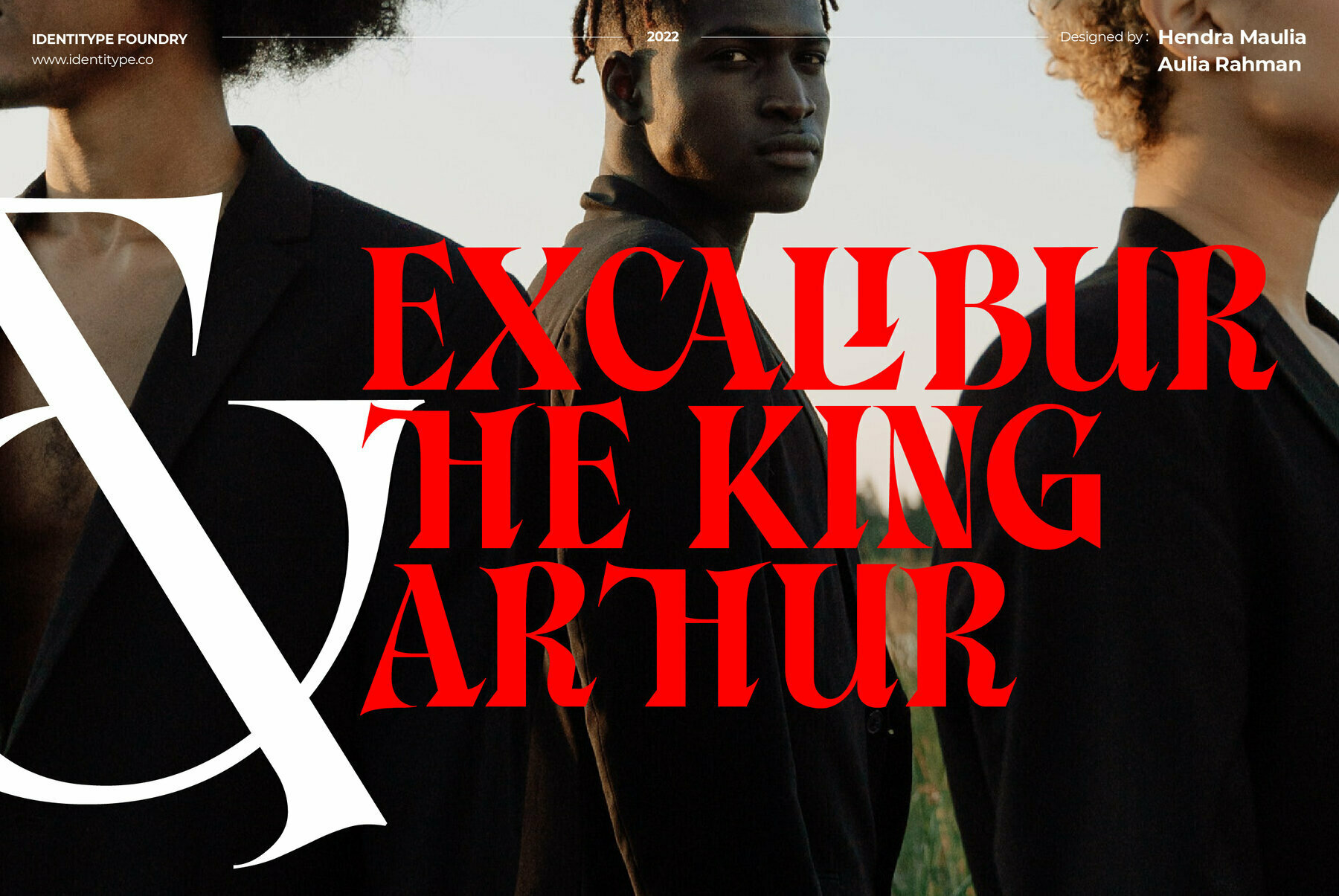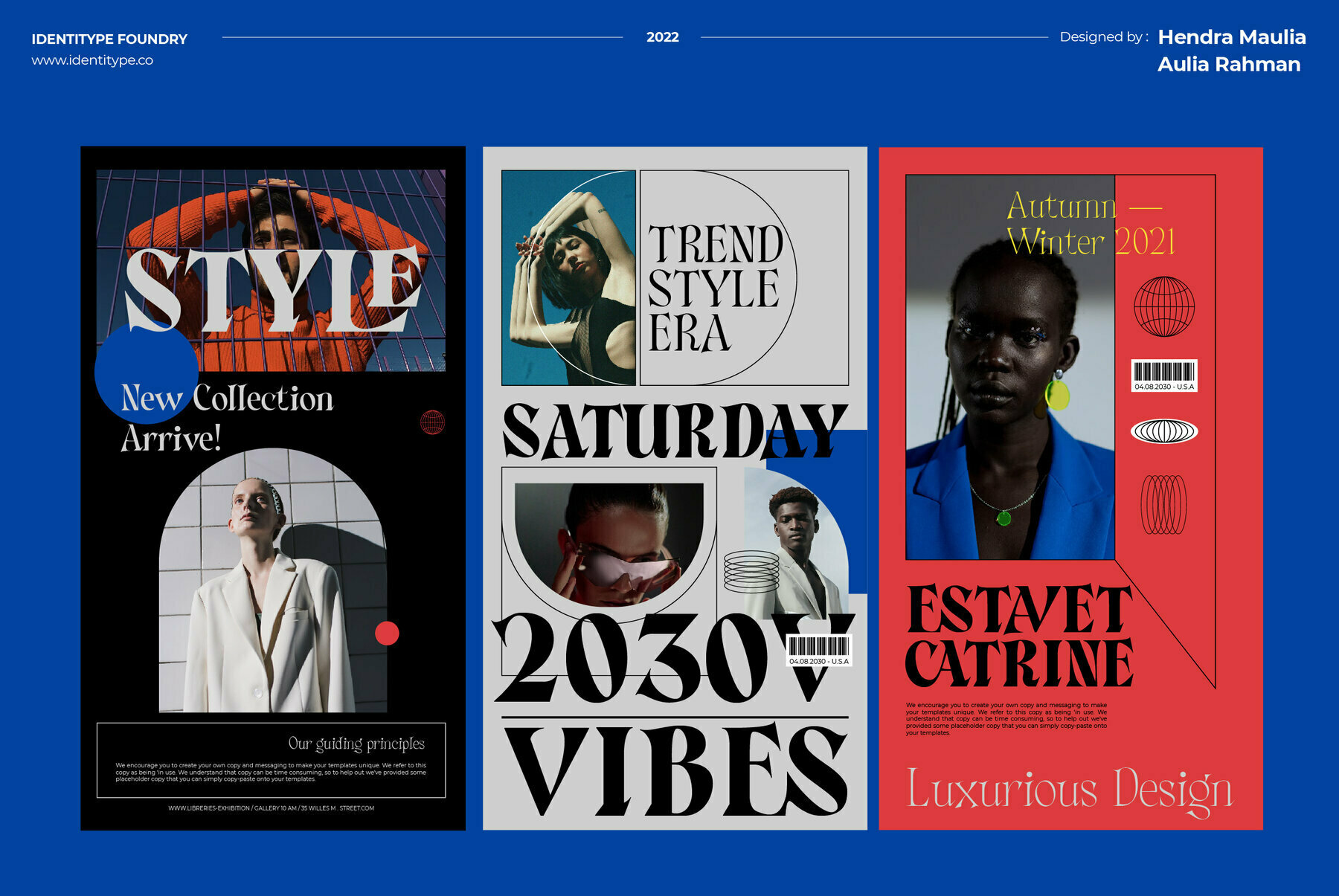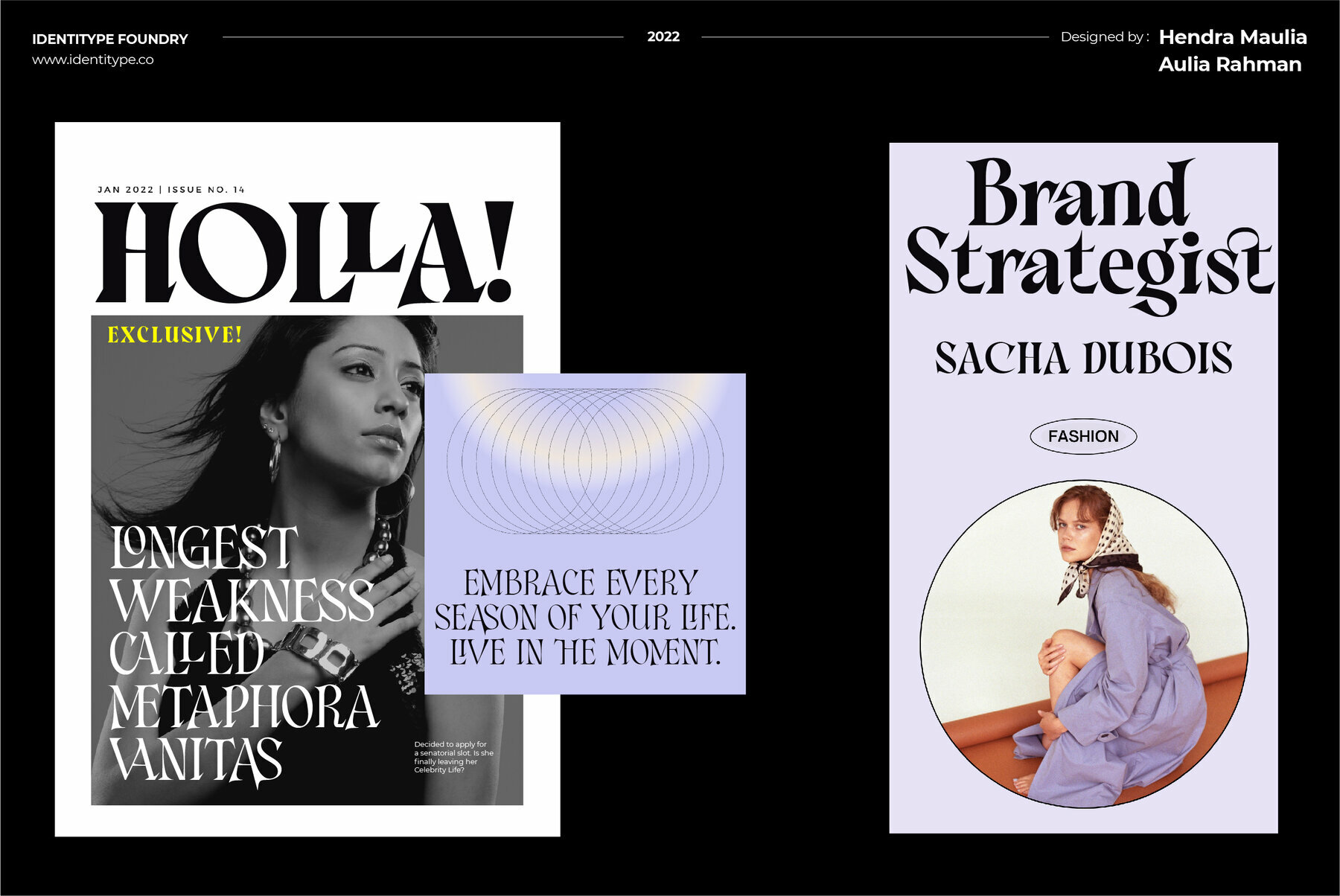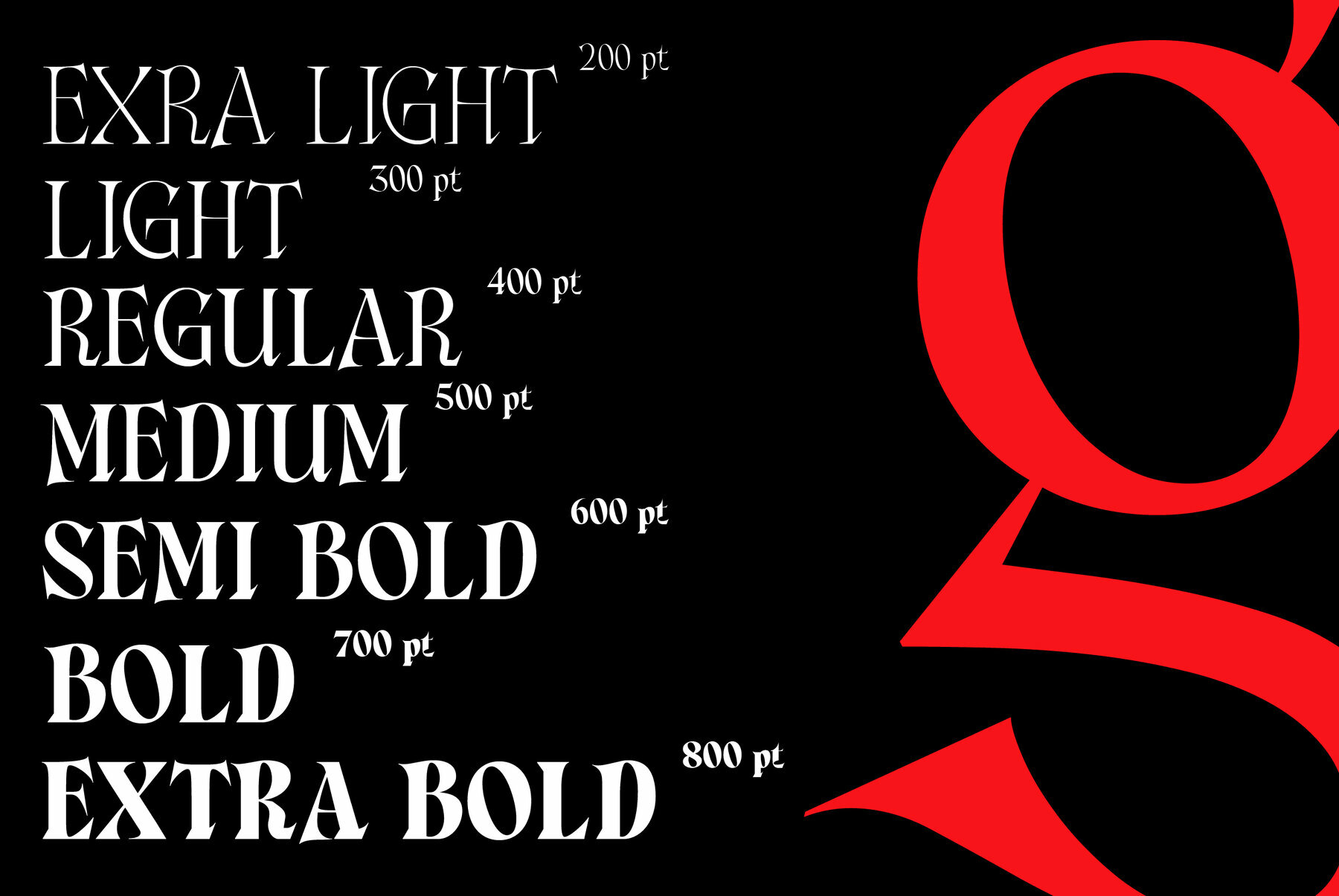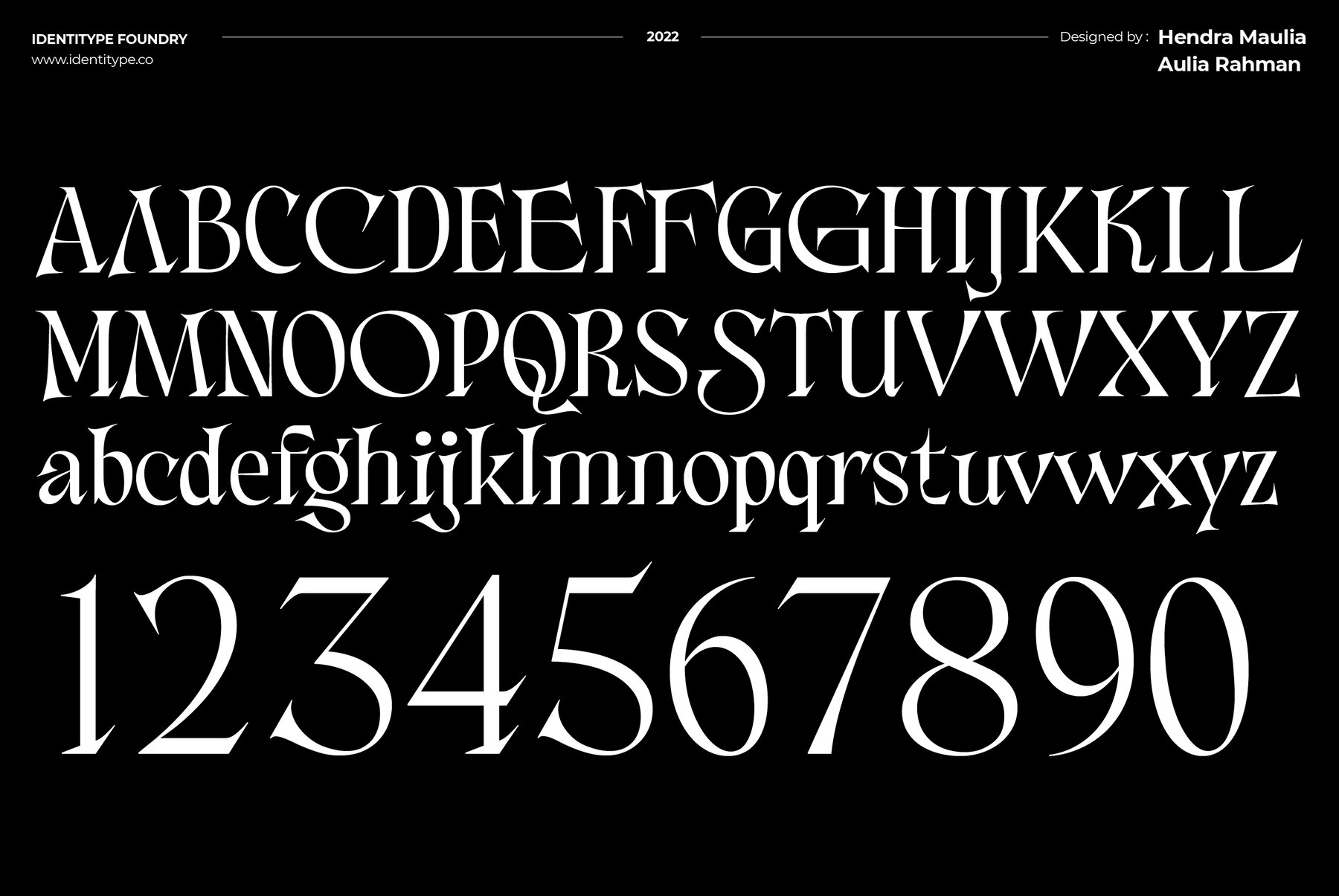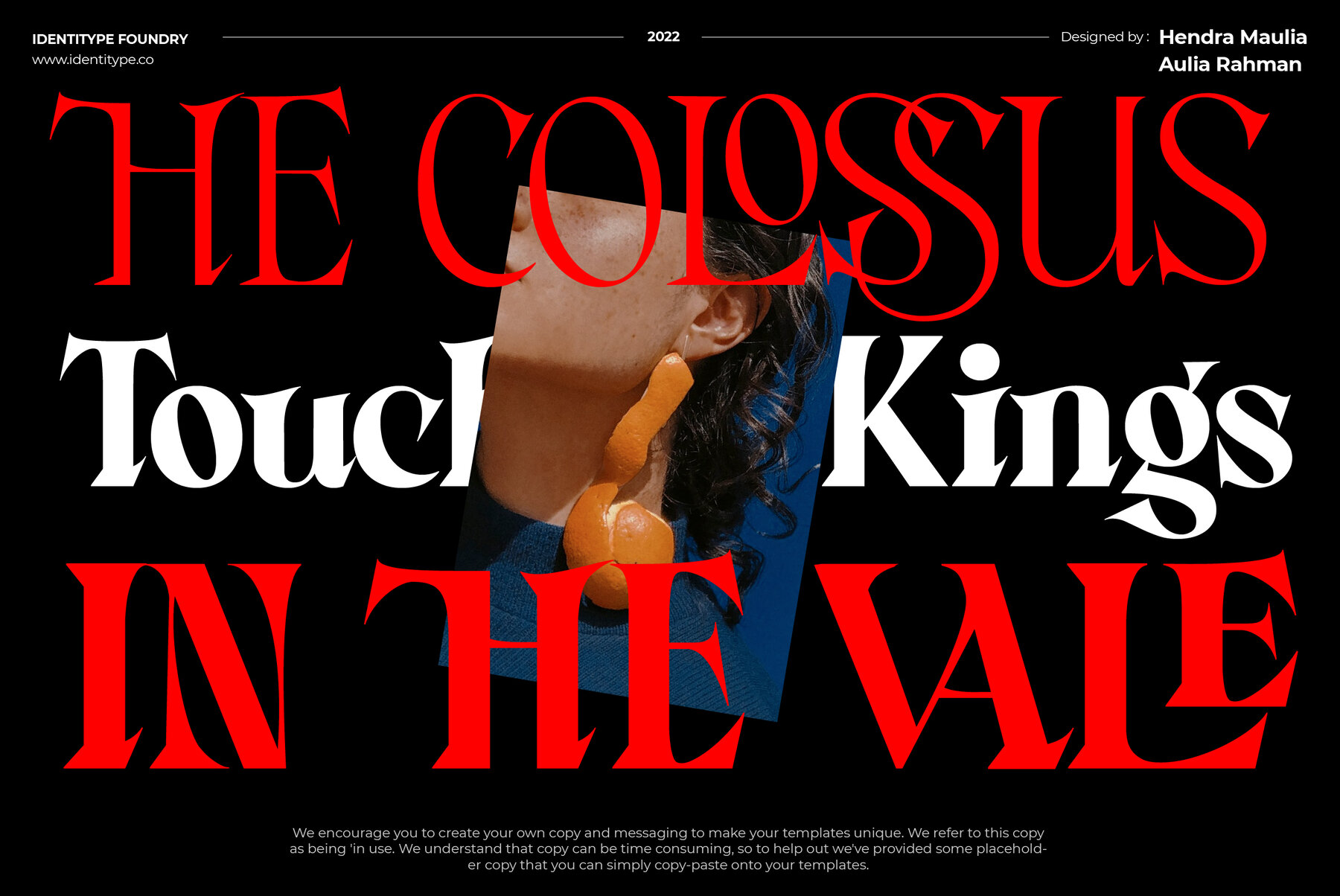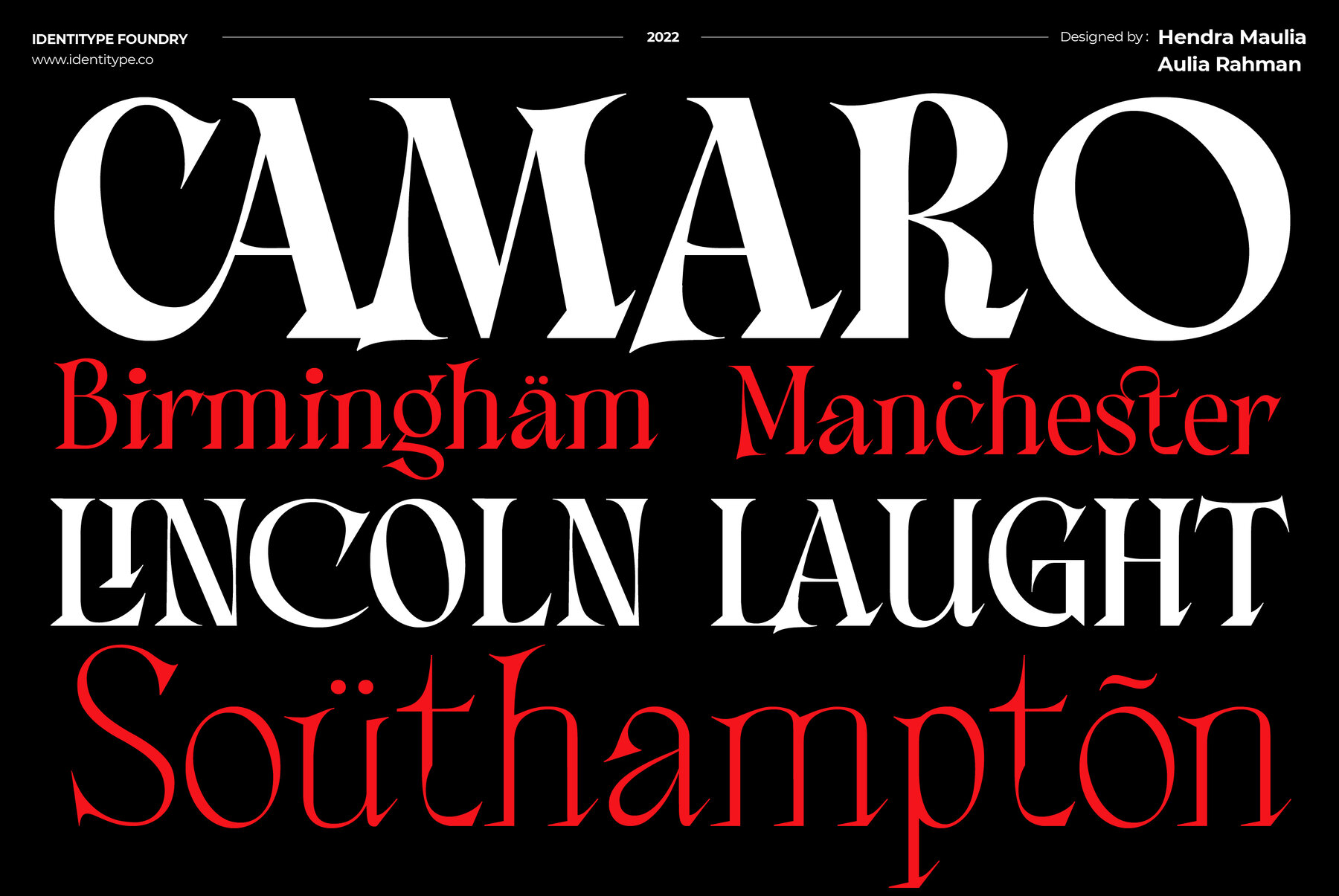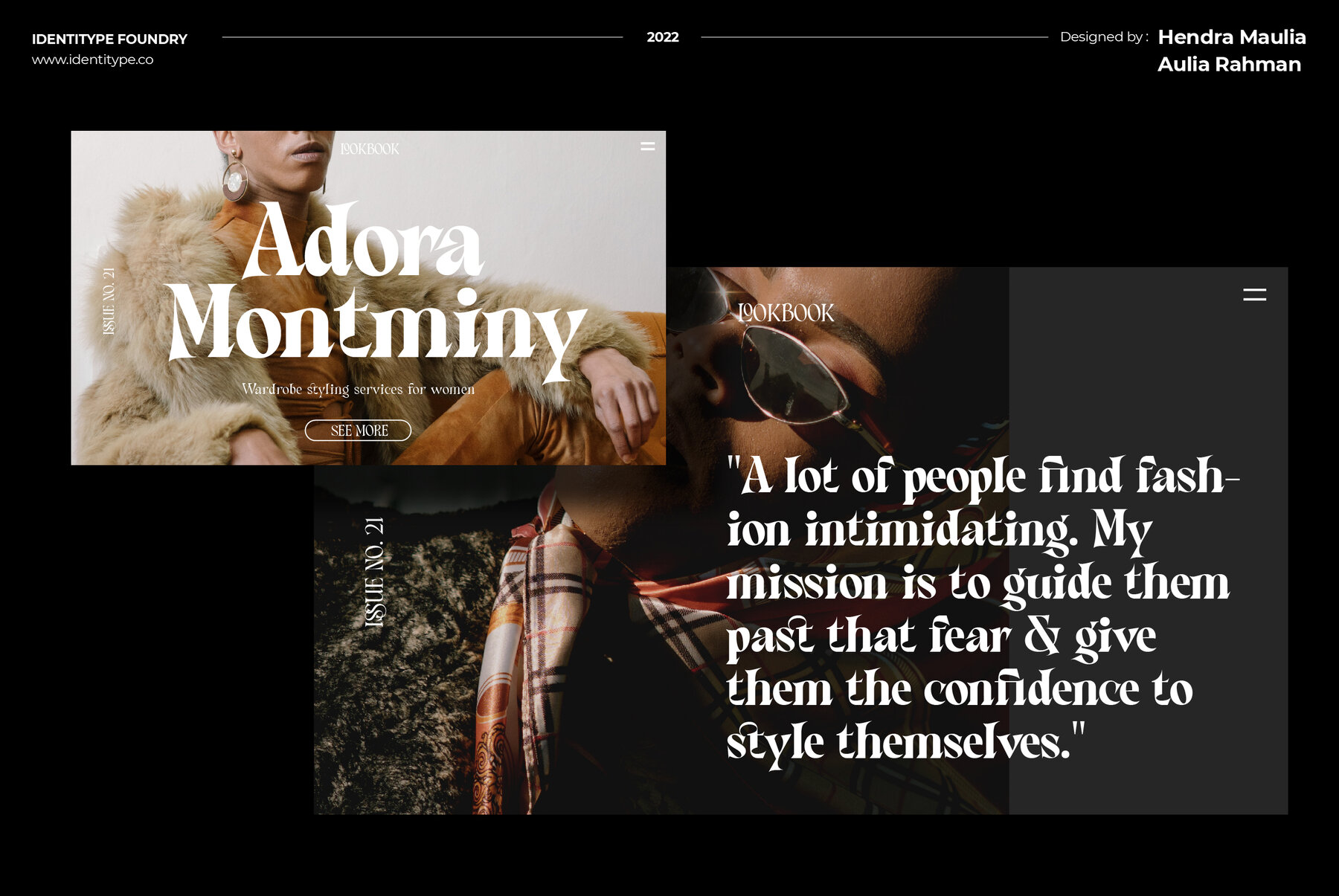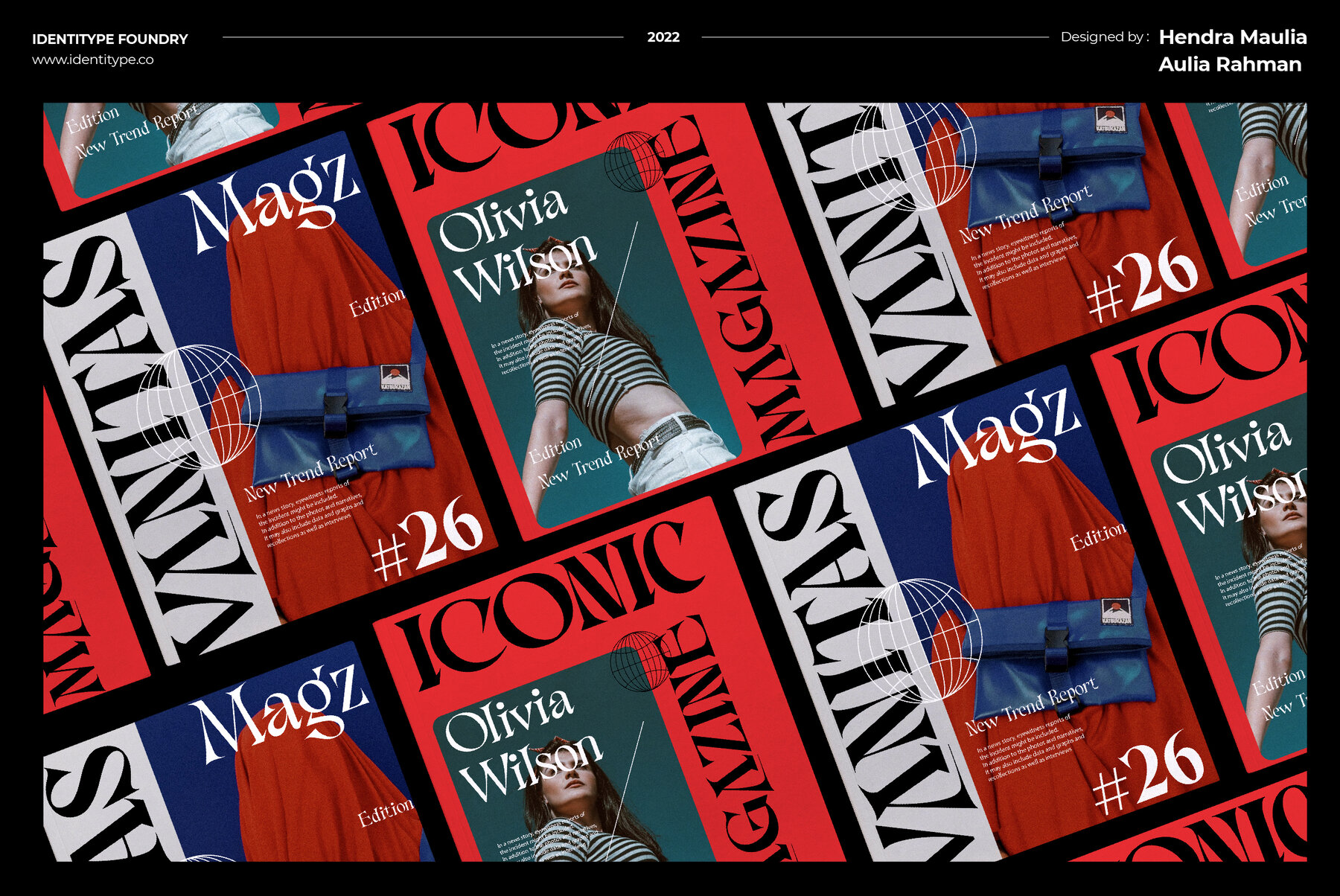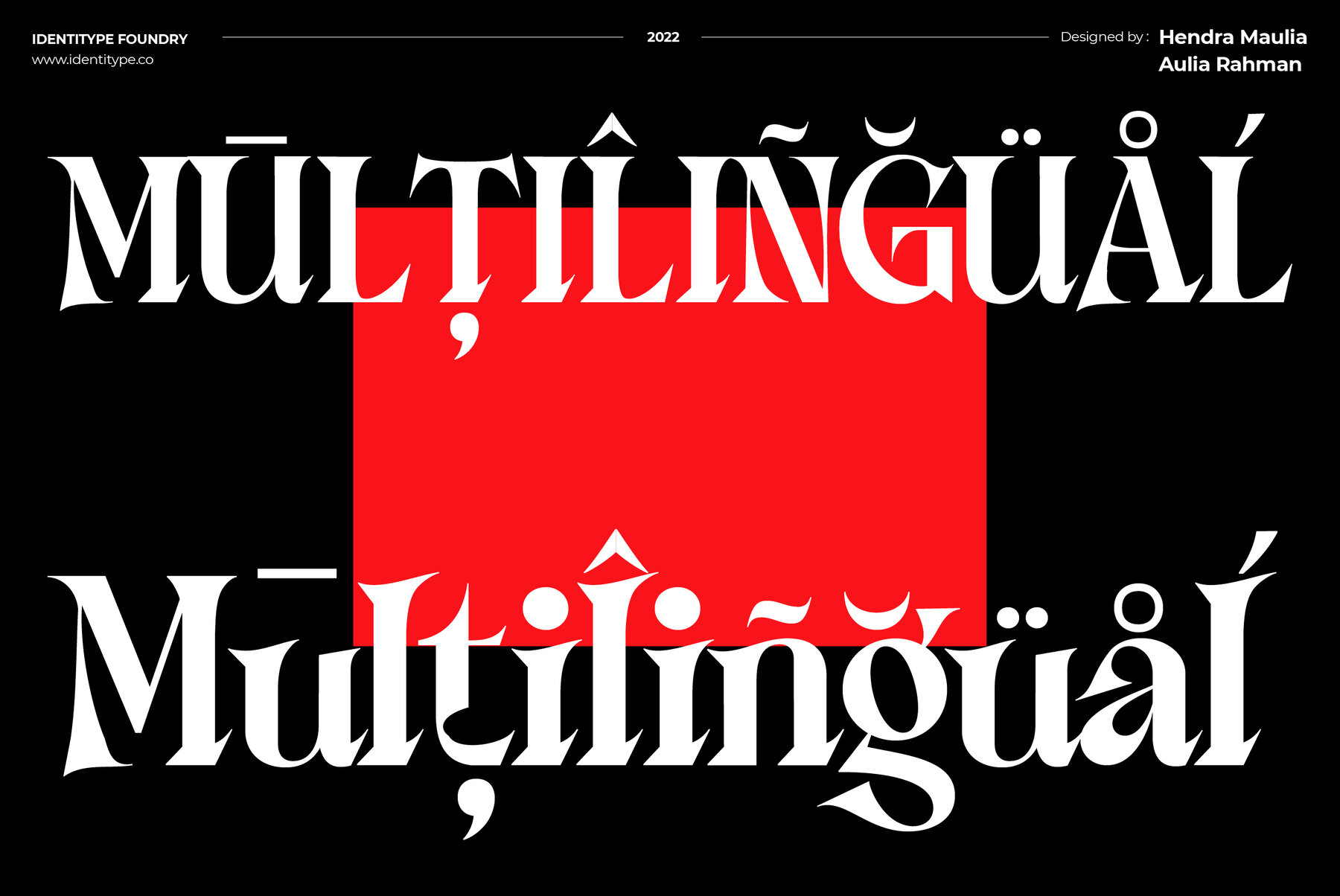
Consta Font
Consta Serif is a seven-weight typeface that wishes to express a tribute to the gracious and delicate forms of the human body. Consta is a standout display font that is an mode to Contrast Serif typography in present day. It’s elaborate curves and unique shapes make it perfect for headings, logos & wedding invitations. Consta is all class so if you want a stylish font that is guaranteed to draw the eye, then this is it!